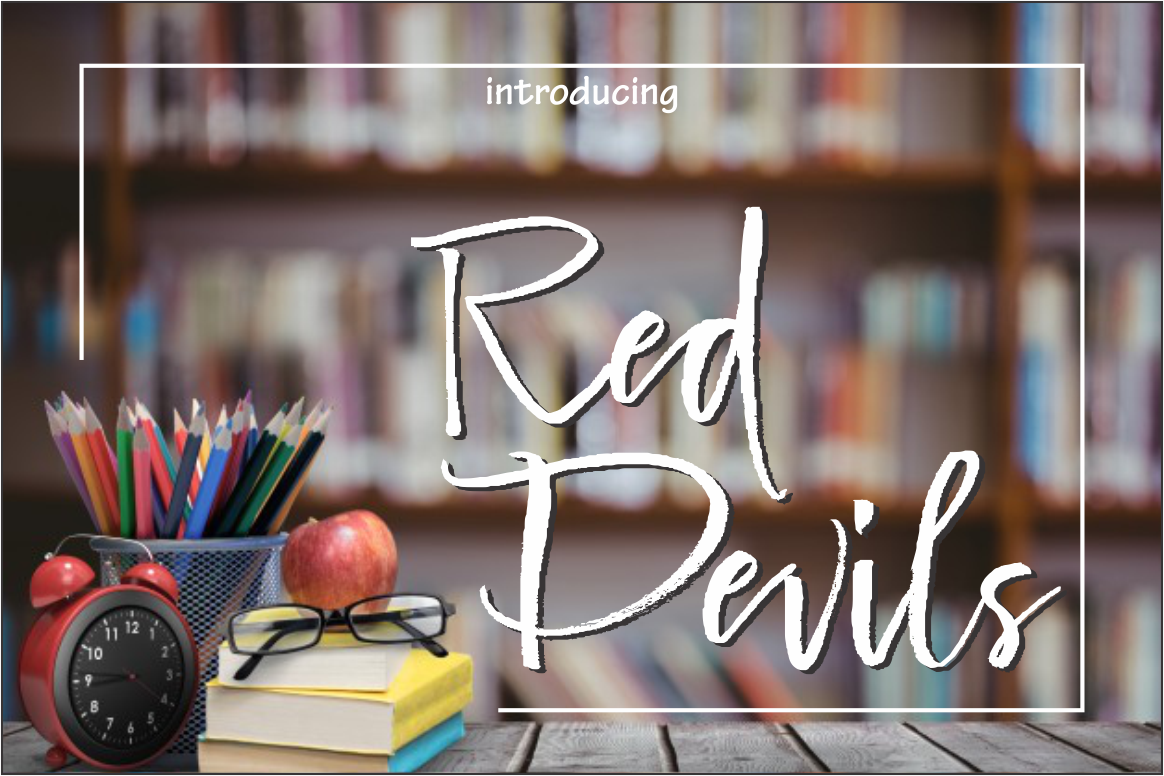
red devils
Red devils Script is a hand-brushed modern calligraphy script font, created with both pen & brush. dancing baseline with lowercase alternates. Were painted on paper. scanned, vectorized and carefully made into a font.
Ideal for logo, wedding invitations, businness card, poster, merchandise, greeting cards, prints, blog banners, apparel, quotes and so much more!